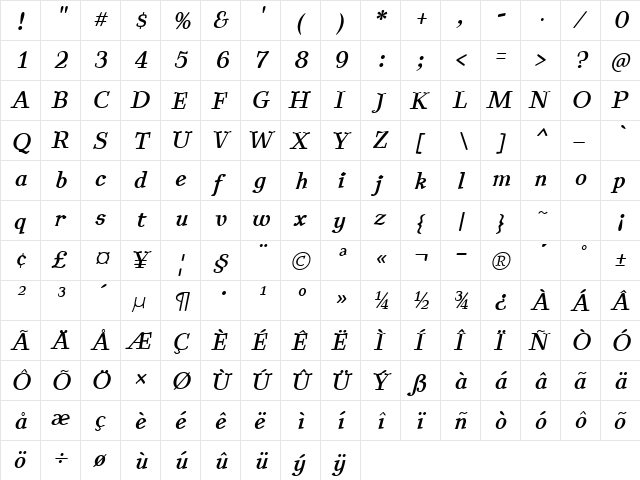
BetterEuroika BoldItalic Font Preview
Design Context for BetterEuroika Typeface
BetterEuroika takes a measured approach to typography — its balanced proportions and neutral character make it a reliable workhorse for both digital and print work. The slanted form adds forward momentum and visual energy. The heavy weight commands attention and anchors typographic hierarchies.
Pro Tip: Try BetterEuroika for annotation and caption copy alongside an upright companion — the contrast in angle creates a dynamic but ordered typographic system.